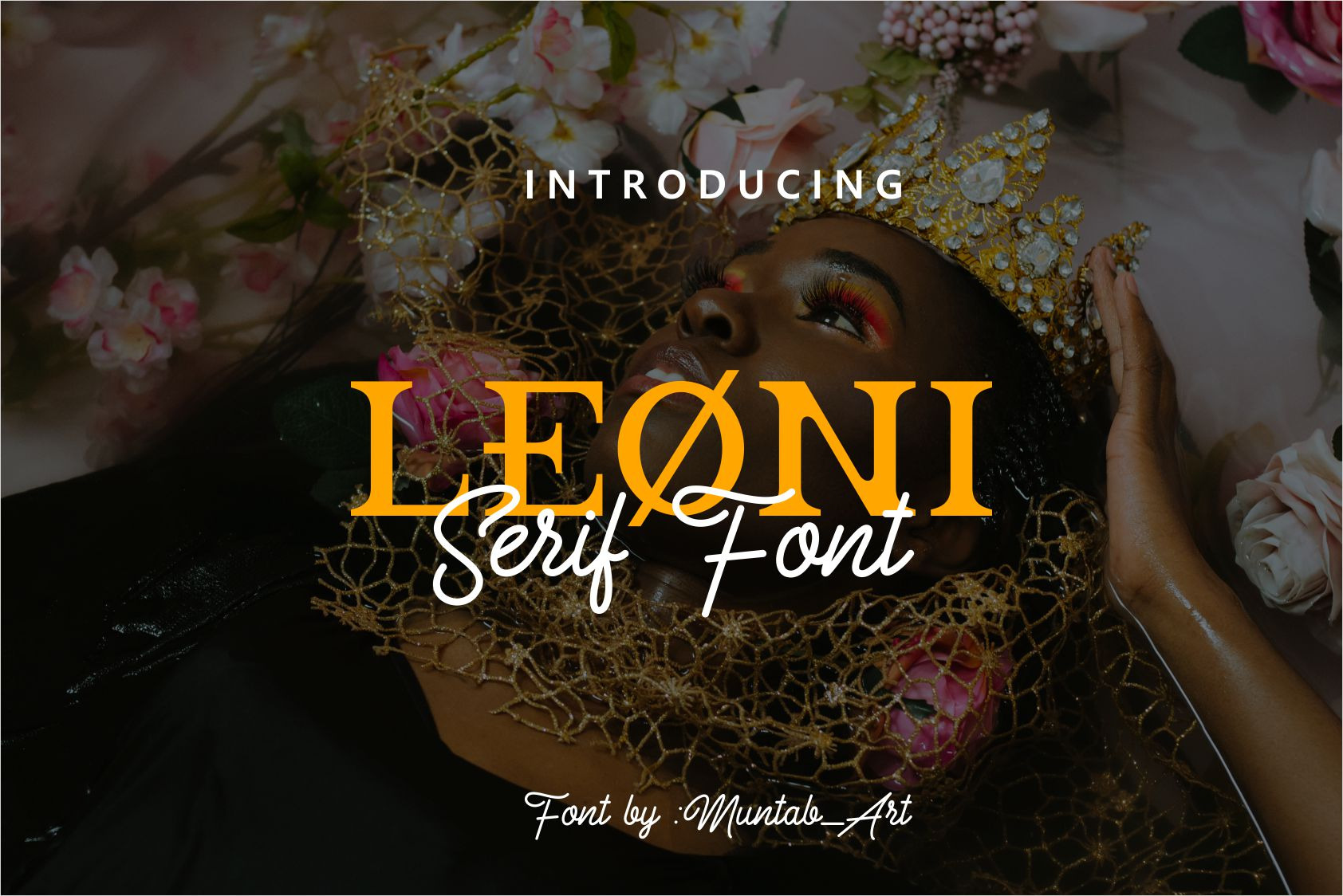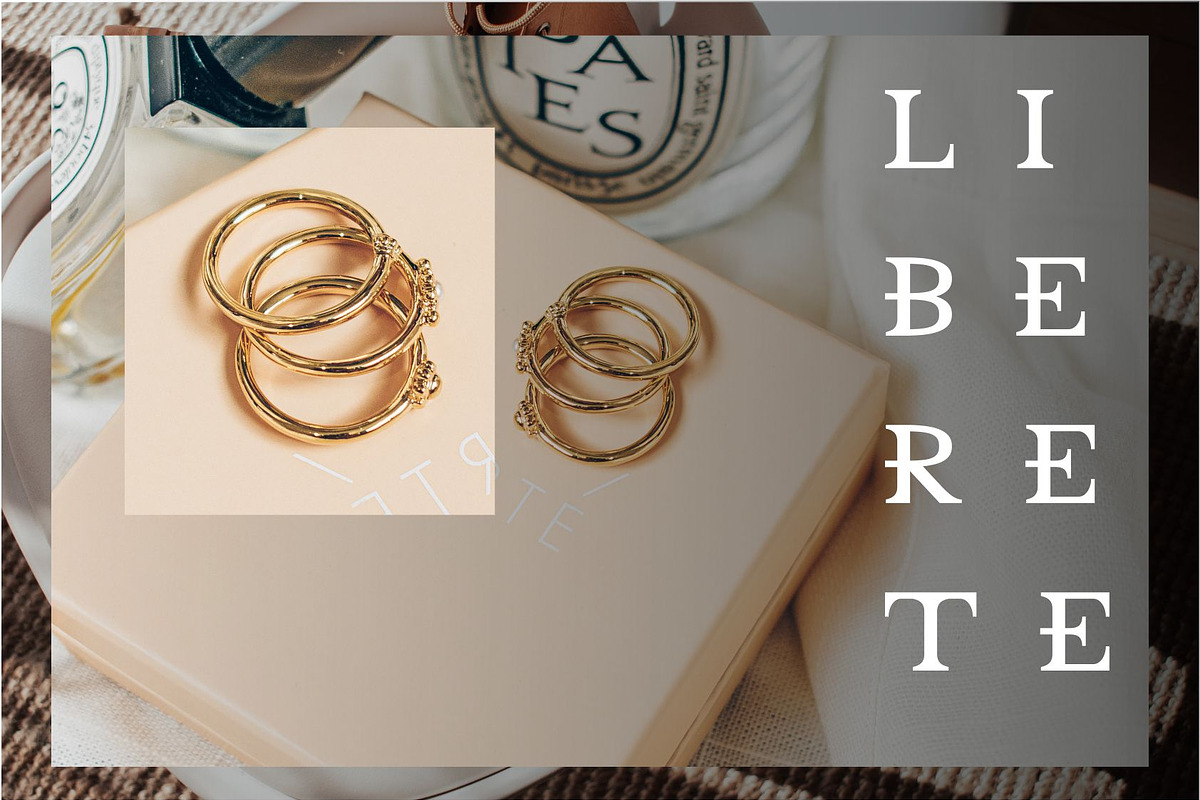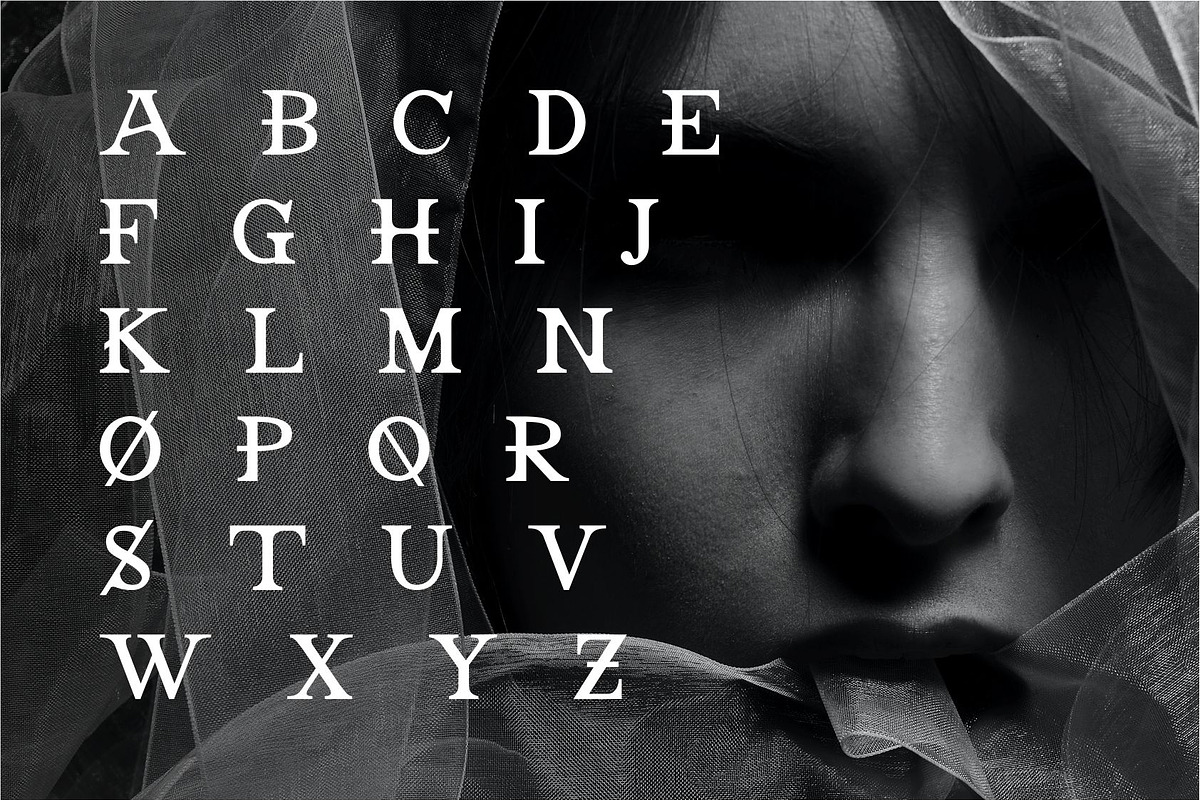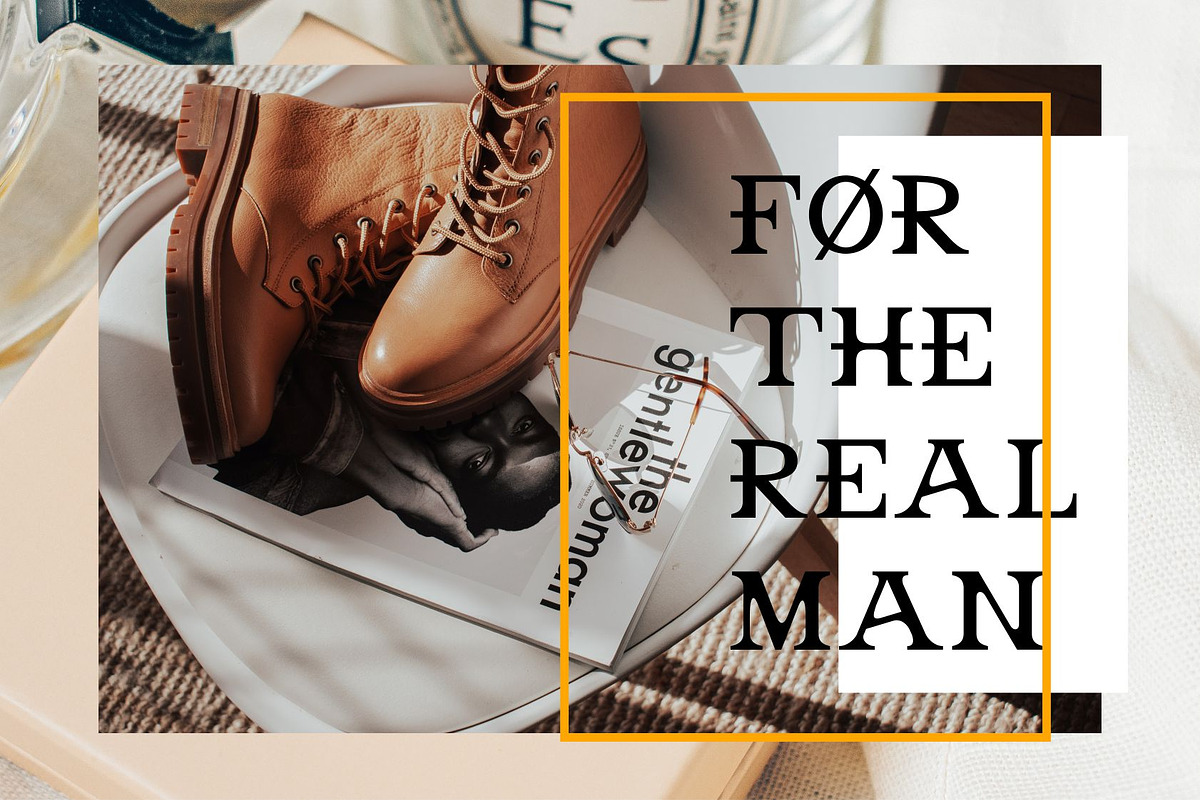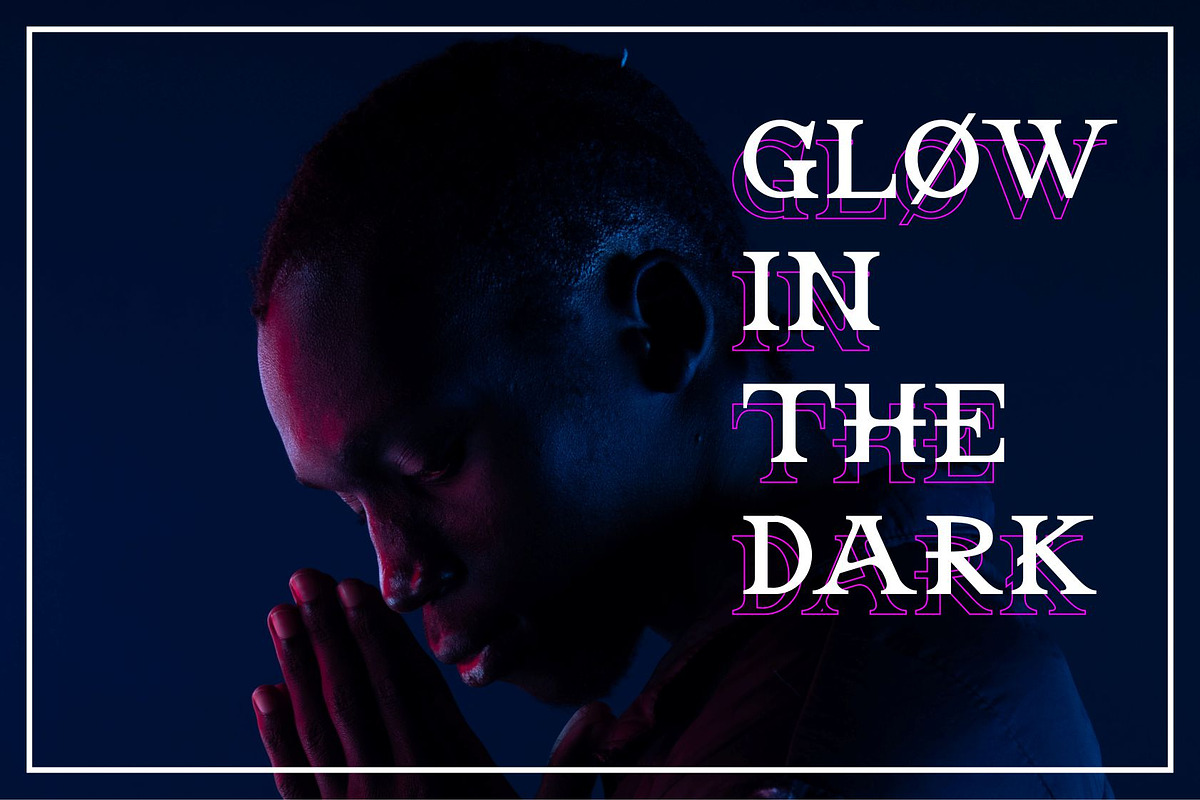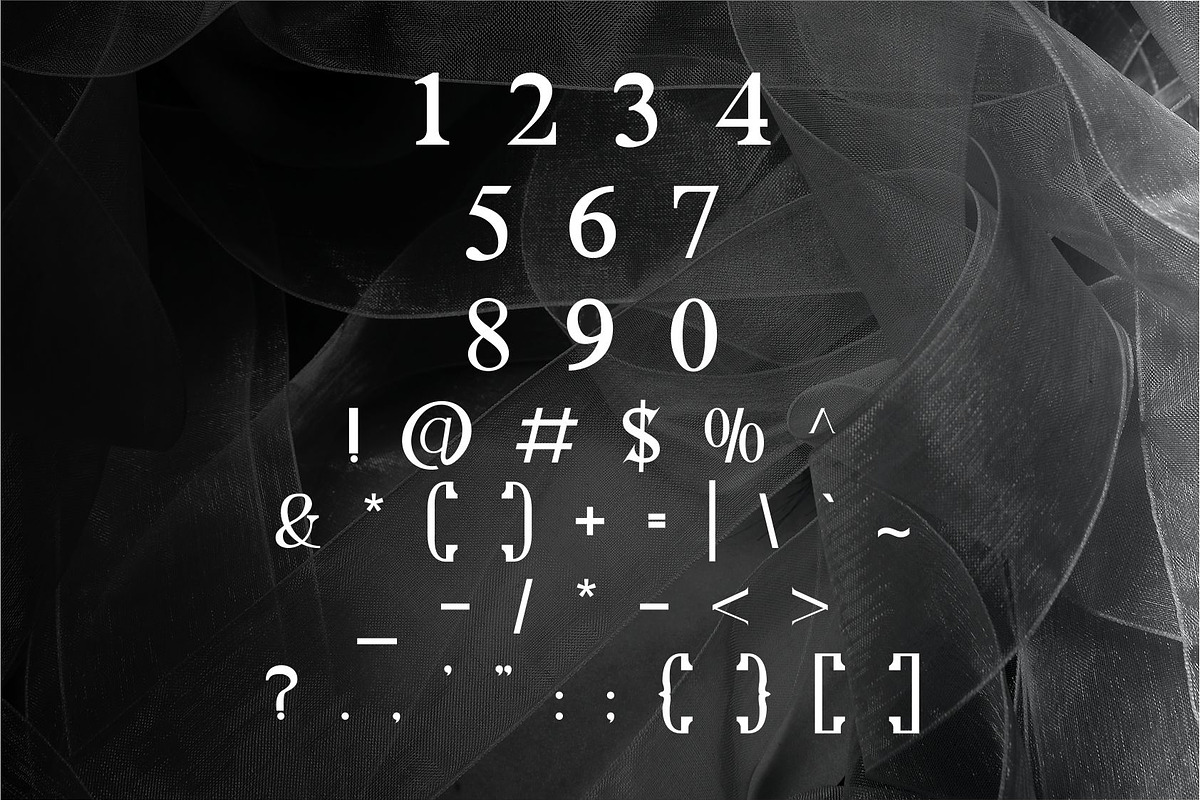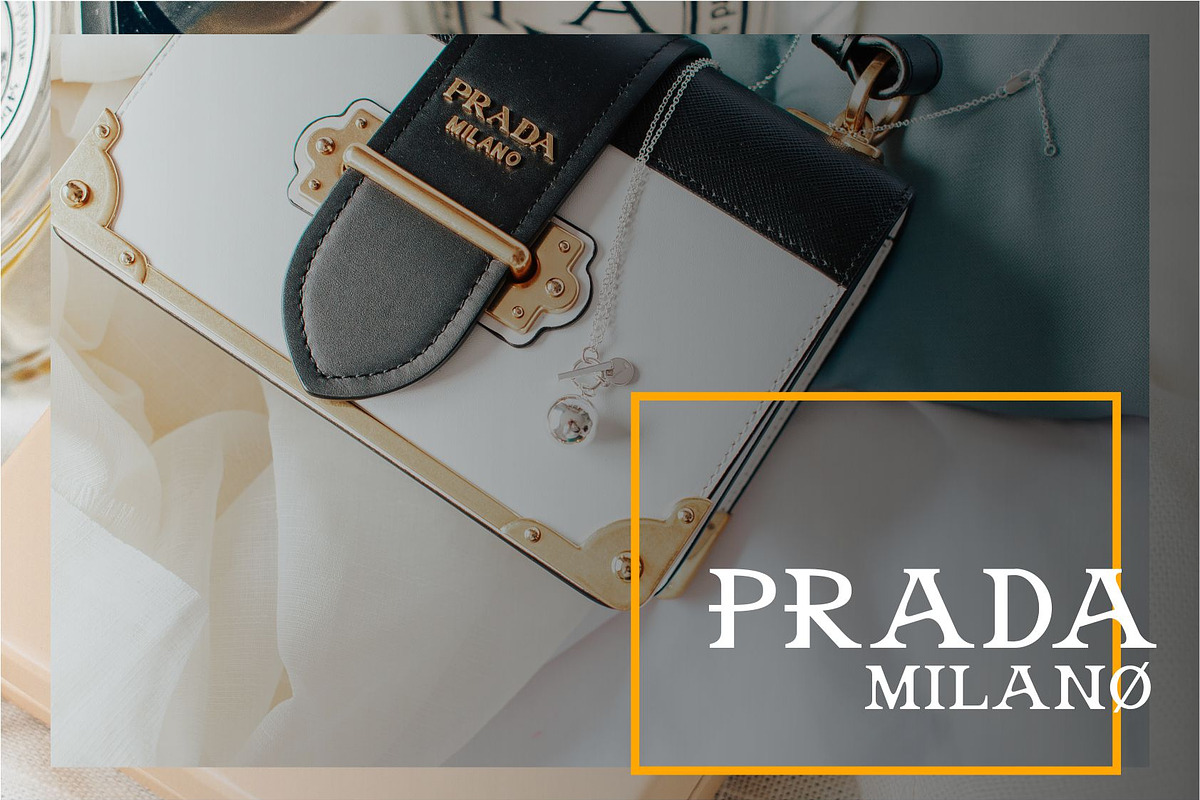
Leoni | Modern Serif Font
Leoni fonts includes uppercase letters, numerals, a large range of punctuation. Serif font with modern style. Created for poster, web design, branding, illustrations, badges and some other works.